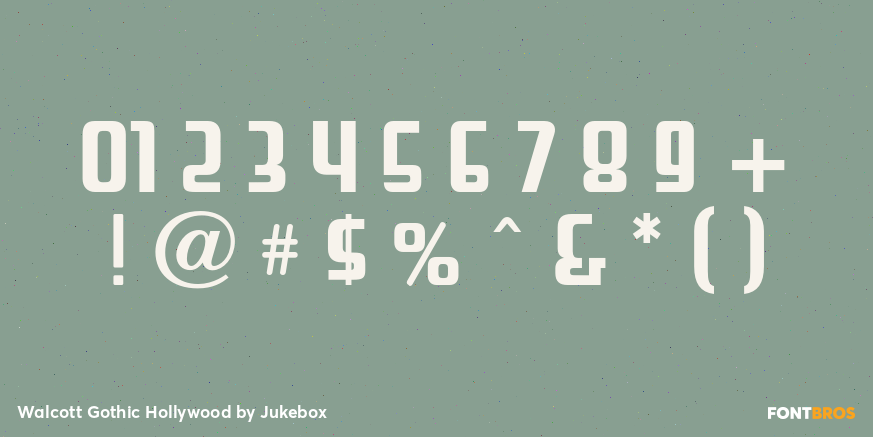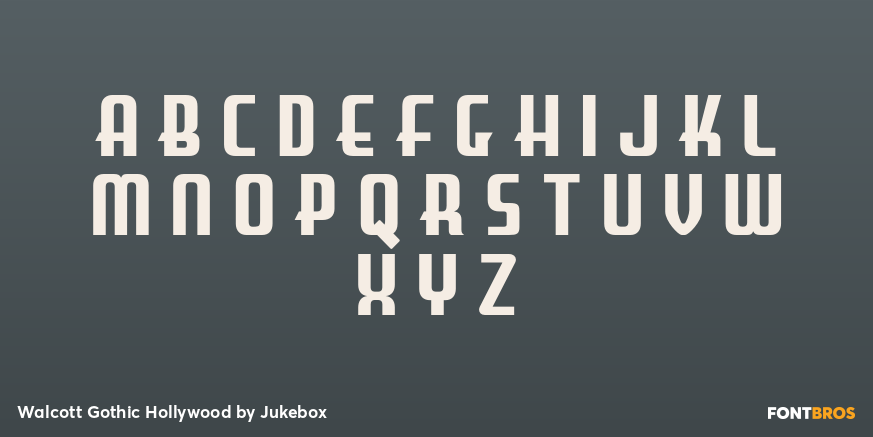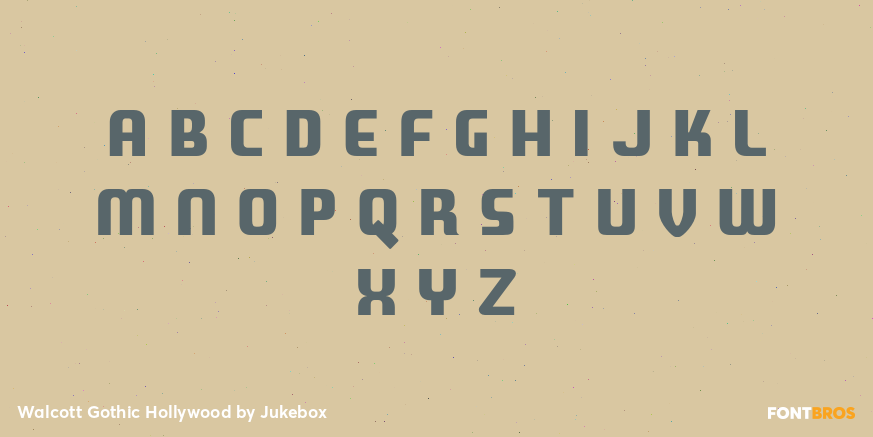
Walcott Gothic Hollywood
Font Family by Jukebox
Walcott Gothic Hollywood evokes styles of the 1930s and 1940s with its somewhat art deco look. A perfect typeface for capturing that look of eras gone by. I chose myself for the namesake of this font.